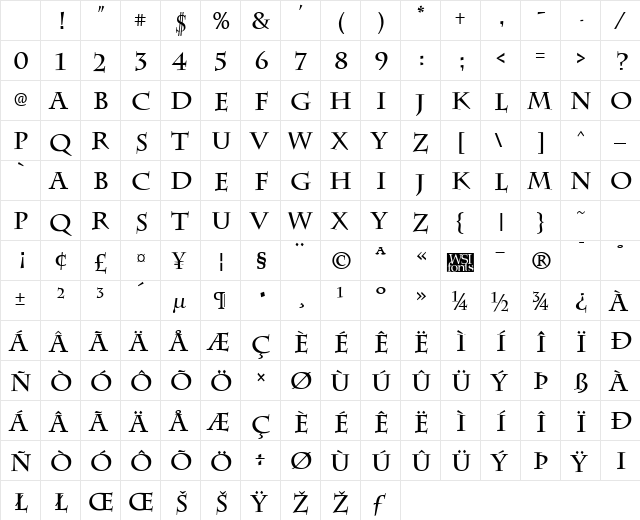
Chattsworth Bold
Chattsworth Family
Chattsworth Bold
Chattsworth Bold Font Preview
Chattsworth Bold Uppercase Preview
Chattsworth Bold Lowercase Preview
Chattsworth Bold Numeric Preview
Chattsworth Bold Character Map
Complete Chattsworth Bold glyph index. Displaying only characters natively supported by Chattsworth Bold font.
Design Context for Chattsworth
Chattsworth is a composed and adaptable typeface that performs quietly and consistently across a wide range of design contexts. Its bold stroke weight gives it real presence on the page.